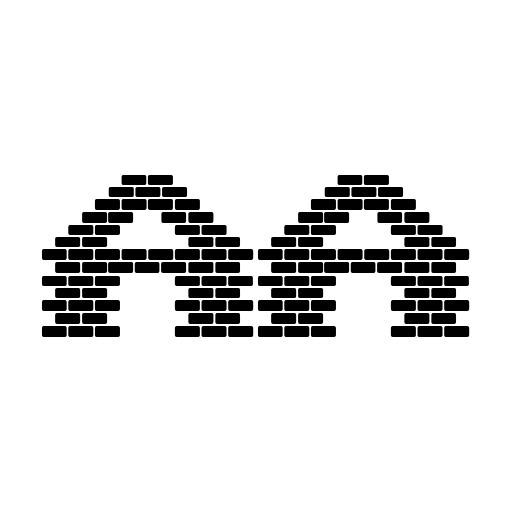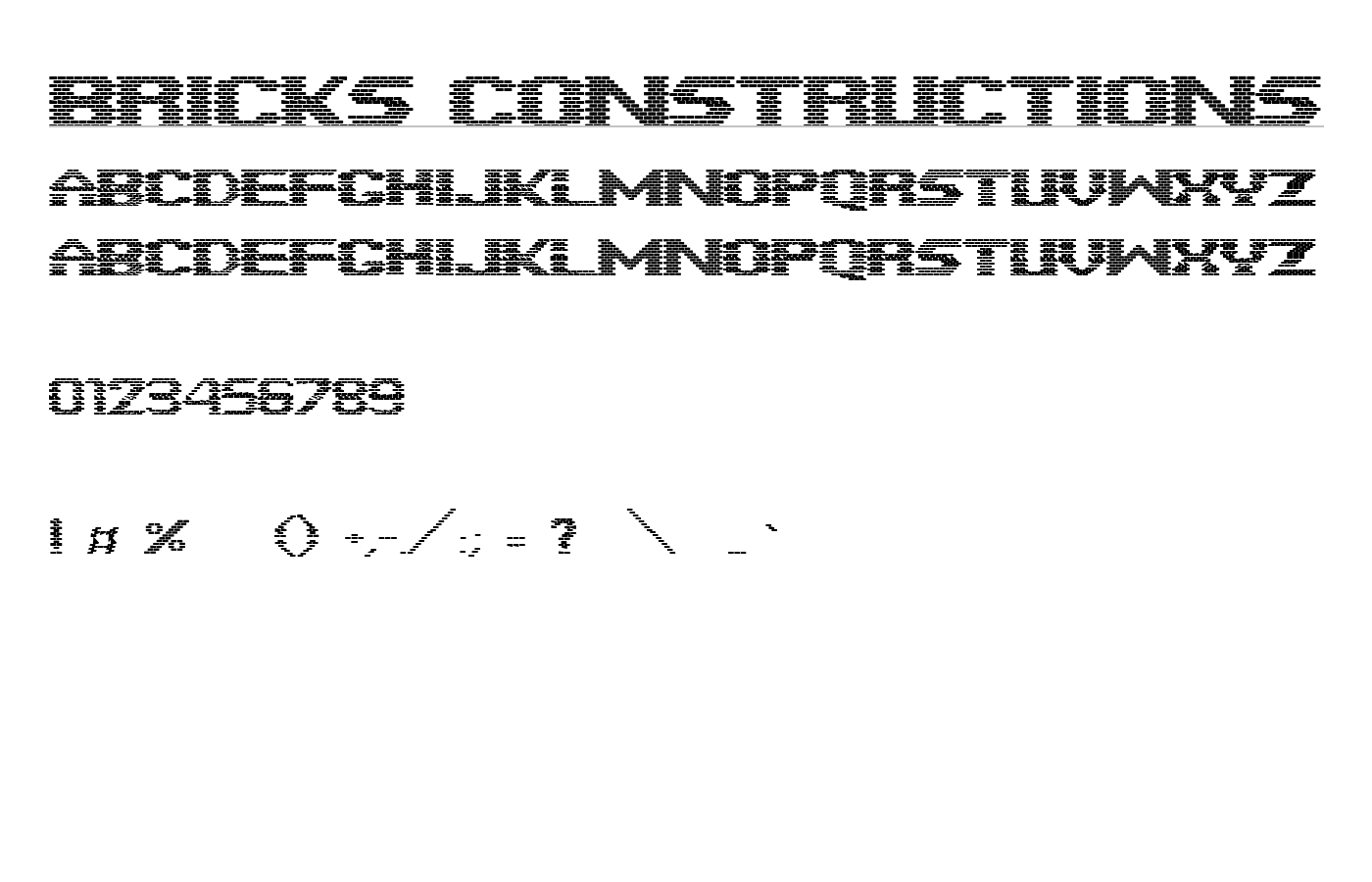
Bricks Constructions is a bold, geometric sans serif font characterized by its unique brick-patterned fill, giving it a constructed and industrial feel. Its blocky letterforms and consistent stroke weight make it perfect for eye-catching headlines, logos, and designs related to architecture, construction, or urban themes. This distinctive font combines modern clarity with a creative, textured style that stands out in branding and display uses.
Bricks Constructions Font
About Bricks Constructions Font